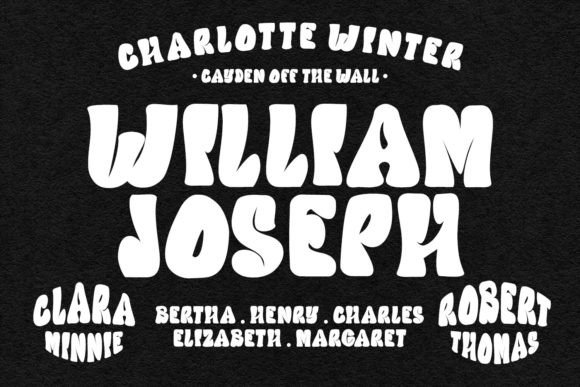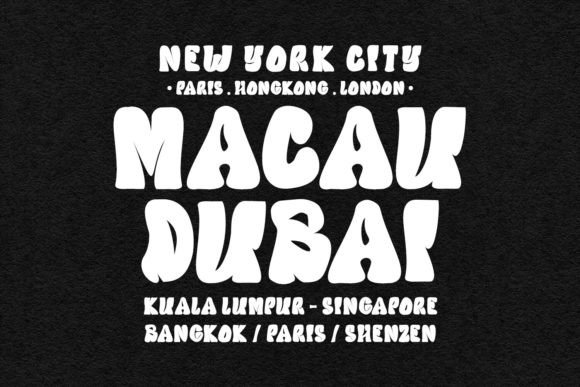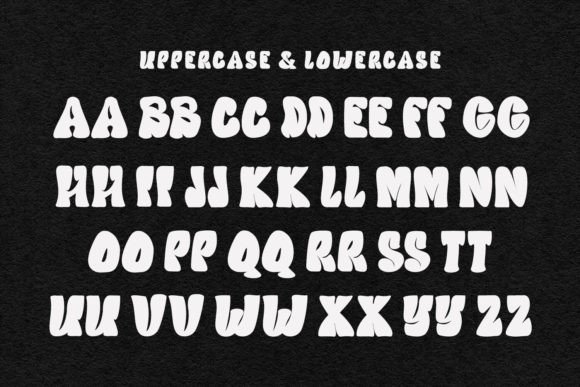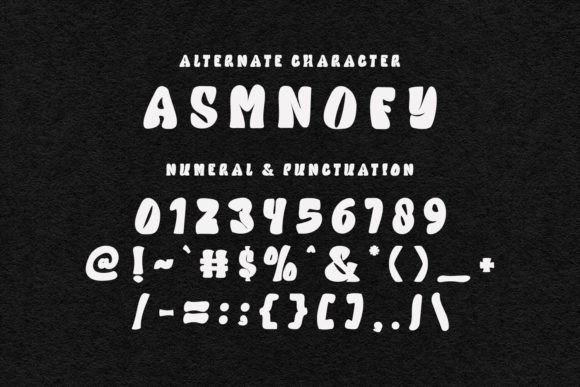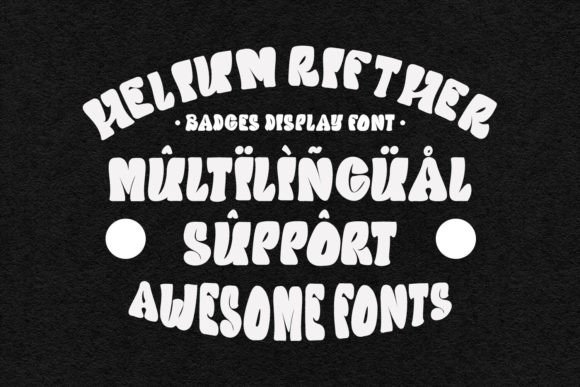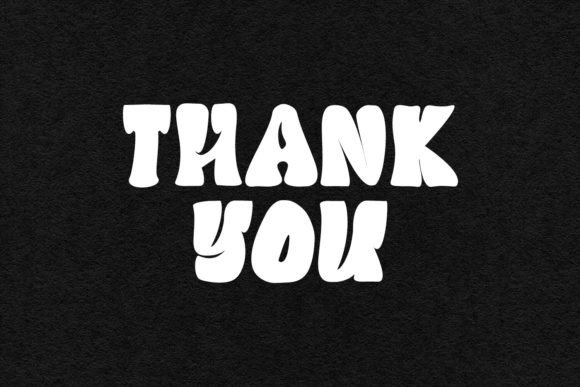
Unleash Your Creativity with Helium Rifther Font
Are you tired of using the same old fonts for your design projects? Look no further than the Helium Rifther Font, a bold and fun display font that’s perfect for creative types. With its unique blend of ligatures and multilingual support, this font is sure to take your designs to the next level.
What is Helium Rifther Font?
Helium Rifther Font is a display font designed to make a statement. Its bold stroke and fun character set make it perfect for a variety of design projects, from logo design to social media graphics. But what really sets Helium Rifther apart is its use of ligatures, which add an extra layer of creativity and flair to your text.
Key Features of Helium Rifther Font
- Multilingual Support: With support for over 100 languages, Helium Rifther Font is perfect for designers who work with clients from around the world.
- Bold Stroke: The font’s bold stroke gives it a confident and eye-catching feel that’s perfect for display text.
- Fun Character Set: The font’s character set is full of personality, with a range of fun and quirky characters to choose from.
- Ligatures: The font’s ligatures add an extra layer of creativity and flair to your text, making it perfect for designers who want to add a little something extra to their designs.
What Can I Use Helium Rifther Font For?
Helium Rifther Font is a versatile font that can be used for a wide range of design projects, including:
- Logo Design: The font’s bold stroke and fun character set make it perfect for creating eye-catching logos that stand out.
- Social Media Graphics: The font’s multilingual support and ligatures make it perfect for creating social media graphics that are both fun and functional.
- Movie and Book Titles: The font’s bold stroke and creative character set make it perfect for creating eye-catching titles for movies and books.
- Short and Long Text: The font’s legibility and flow make it perfect for both short and long text, whether you’re creating a headline or a paragraph of body text.
Why Choose Helium Rifther Font?
So why choose Helium Rifther Font over other display fonts on the market? Here are just a few reasons:
- Unique Style: The font’s bold stroke and fun character set give it a unique style that’s sure to stand out in a crowd.
- Multilingual Support: The font’s multilingual support makes it perfect for designers who work with clients from around the world.
- Creative Freedom: The font’s ligatures and character set give you the creative freedom to experiment with different designs and styles.
Tips for Using Helium Rifther Font
Here are a few tips for getting the most out of Helium Rifther Font:
- Experiment with Ligatures: The font’s ligatures are a key feature, so don’t be afraid to experiment with different combinations to find the one that works best for your design.
- Play with Color: The font’s bold stroke and fun character set make it perfect for using with bright and bold colors.
- Mix and Match: Don’t be afraid to mix and match Helium Rifther Font with other fonts to create a unique and eye-catching design.